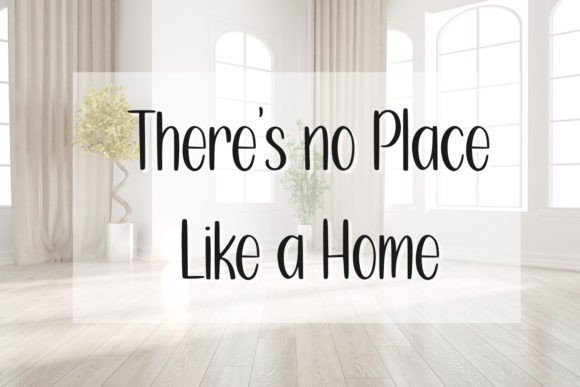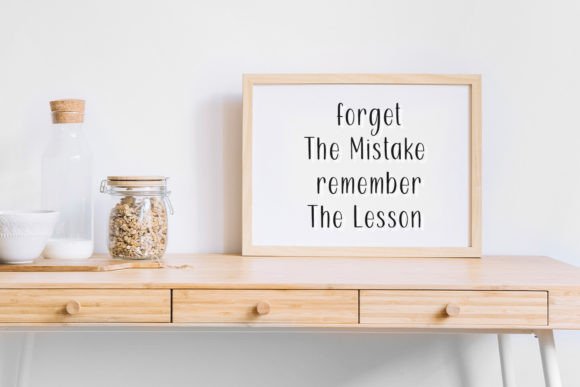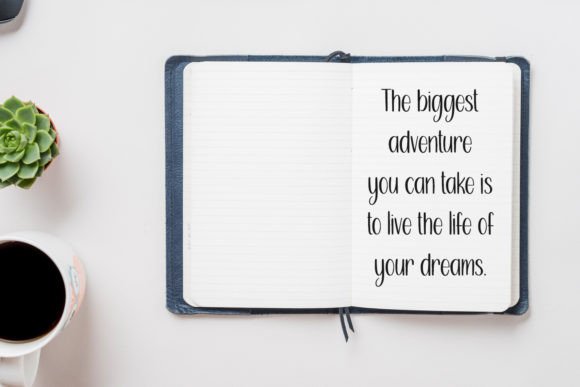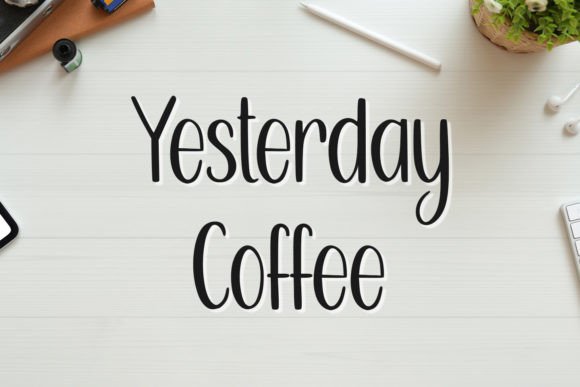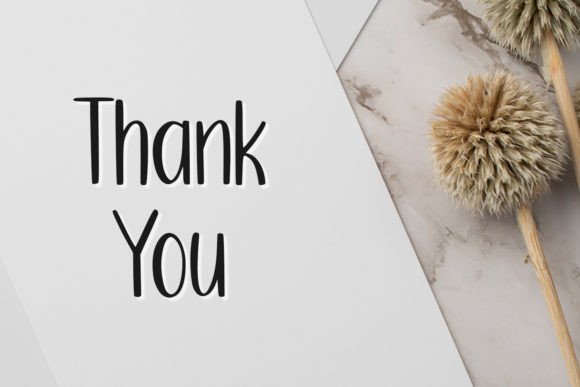
Gardener Font: The Perfect Handwritten Sans Serif for Your Creative Projects
Are you a designer, crafter, or DIY enthusiast looking for a unique and versatile font to elevate your creative projects? Look no further than the Gardener font! This beautiful handwritten sans serif font is perfect for a wide range of applications, from quotes and notes to logos, t-shirt designs, tote bag designs, cards, banners, social media, and more.
What is Gardener Font?
Gardener font is a carefully crafted handwritten sans serif font that exudes a sense of warmth, friendliness, and approachability. Its clean and simple lines make it highly legible, while its unique character and subtle imperfections give it a personal touch that’s hard to find in more traditional fonts.
What Makes Gardener Font So Versatile?
One of the things that sets Gardener font apart from other fonts is its incredible versatility. Whether you’re designing a logo, creating a social media graphic, or crafting a handmade card, this font can adapt to any style or theme. Its neutral tone and lack of ornamentation make it the perfect choice for a wide range of projects, from modern and minimalist to playful and whimsical.
Perfect for Quotes, Notes, and More
Gardener font is particularly well-suited for quotes, notes, and other types of text-based designs. Its clear and easy-to-read lines make it perfect for conveying inspiring words, heartfelt messages, or important information. Plus, its handwritten feel adds a touch of personality and emotion that’s hard to replicate with more traditional fonts.
Great for Logos, T-Shirt Designs, and Other Merchandise
In addition to its uses in digital design, Gardener font is also a great choice for logos, t-shirt designs, tote bag designs, and other types of merchandise. Its unique character and hand-crafted feel make it perfect for creating custom designs that stand out from the crowd. Whether you’re designing for yourself or for a client, this font is sure to impress.
Cards, Banners, and Social Media
Gardener font is also a great choice for more traditional design applications, such as cards, banners, and social media graphics. Its clear and easy-to-read lines make it perfect for conveying important information, while its playful feel adds a touch of personality and whimsy. Whether you’re designing for a special occasion or just want to add some visual interest to your social media feed, this font is a great choice.
Why Choose Gardener Font?
So why choose Gardener font for your next creative project? Here are just a few reasons why this font stands out from the crowd:
- Unique and Handwritten: Gardener font has a unique, hand-crafted feel that’s hard to find in more traditional fonts.
- Highly Legible: Its clear and simple lines make it easy to read, even at small sizes.
- Versatile: Gardener font can adapt to any style or theme, from modern and minimalist to playful and whimsical.
- Perfect for a Wide Range of Projects: Whether you’re designing a logo, creating a social media graphic, or crafting a handmade card, Gardener font is a great choice.
In conclusion, Gardener font is a beautiful and versatile handwritten sans serif font that’s perfect for a wide range of creative projects. Its unique character, clear lines, and playful feel make it a great choice for designers, crafters, and DIY enthusiasts alike. Whether you’re designing a logo, creating a social media graphic, or crafting a handmade card, Gardener font is sure to elevate your project and add a touch of personality and whimsy.